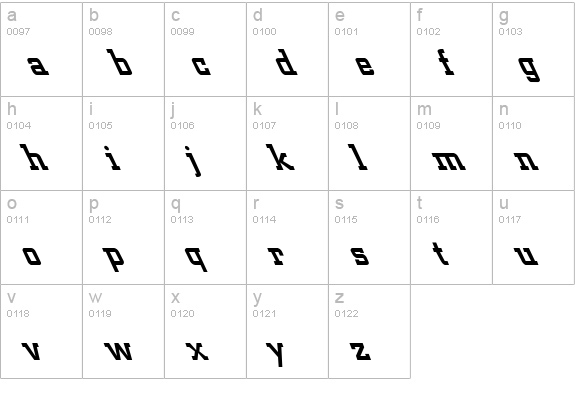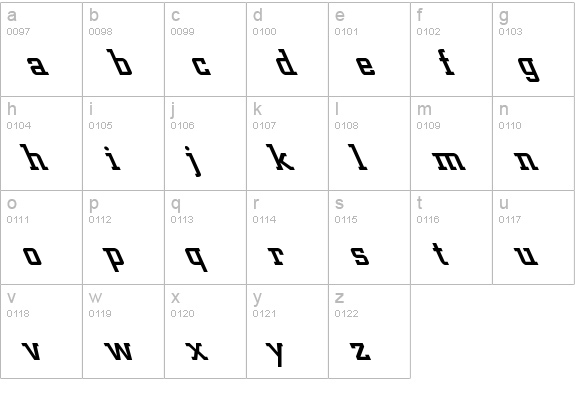
City Medium Extreme Lefty Font Details
City Medium Extreme Lefty is a balanced, medium-weight variant in the City typeface family \xE2\x80\x94 well suited to sub-headlines, navigation, and balanced editorial work.
City Medium Extreme Lefty font is a bold and dynamic typeface that exudes a sense of creativity and originality. Its unique design features exaggerated left-leaning strokes that give it a distinct and playful appearance. Perfect for adding a touch of whimsy to your projects, this font is sure to stand out and make a statement. What's even better is that City Medium Extreme Lefty font is available for free download at FontsMarket.com. This means you can easily access this eye-catching font and incorporate it into your designs without any cost. Whether you're working on a poster, logo, or any other creative project, City Medium Extreme Lefty font is a fantastic choice to add a fun and energetic vibe. Download it today and let your creativity soar with this free and captivating typeface.